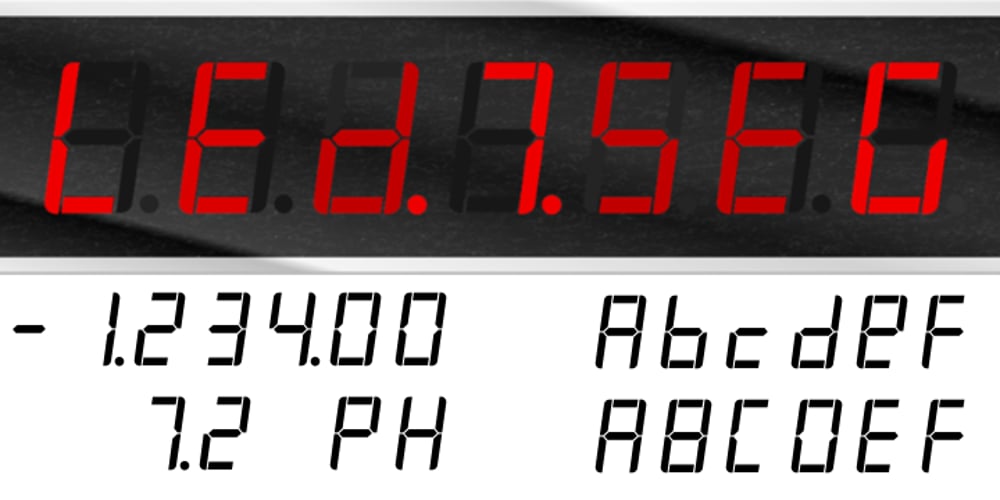
AF LED7Seg 1 Font Family was designed by Peter Cross and published by Fortune-Fonts.com Limited. AF LED7Seg 1 contains 1 styles and family package options. * For when you need the most realistic looking electronic display. * See User Manuals Main advantages: – Spacing between characters does not change when entering a decimal point or colon between them. – Custom characters can be produced by selecting any combination of segments to be displayed. Low cost electronic displays have a fixed number of segments that can be turned on or off to represent different symbols. A digital watch would be the most common example. Fonts typically available for depicting electronic displays are often in the artistic style of these common LED or LCD displays. They provide the look-and-feel, but fall short when technical accuracy is required. Failure to represent an accurate and consistent representation of the real thing can be a cringe-worthy experience for the product design and marketing team, or even the hobbyist for that matter. To solve this problem, Fortune Fonts has released a range of fonts that accurately depict the displays typically found on low cost electronic devices: watches, answering machines, car stereos, alarm clocks, microwaves and toys. These fonts come with numbers, letters and symbols predefined. However, they also allow you to create your own segment combinations for the custom symbols you need. When producing manuals, marketing material and user interfaces, accuracy is an all-or-nothing concept. Instructions in the user manual describe how to turn these fonts into realistic displays according to your own design, in the manner of the images above.